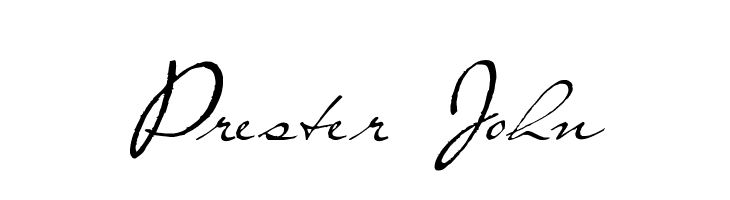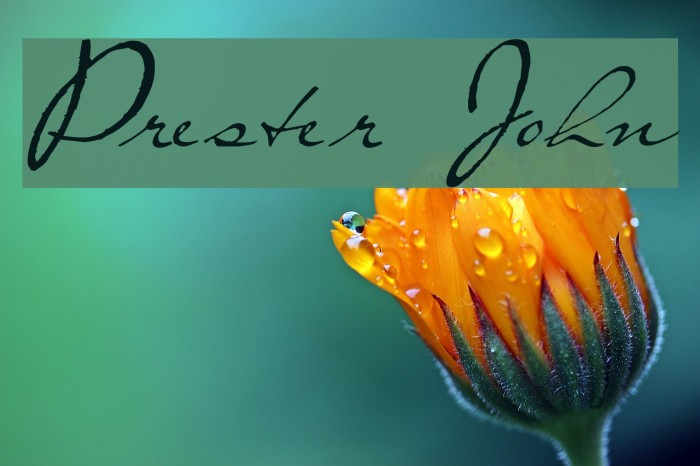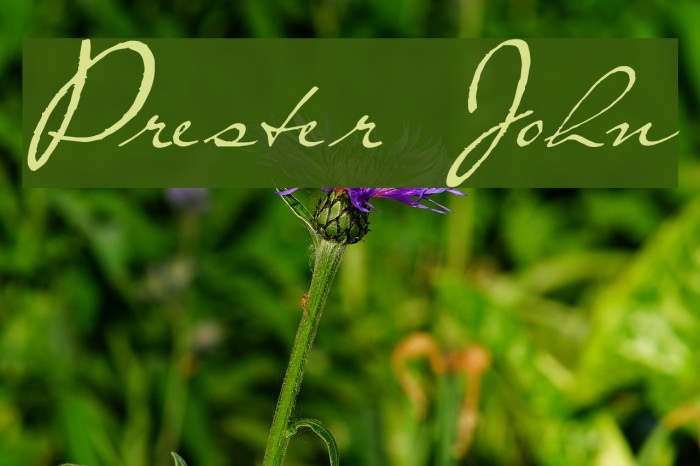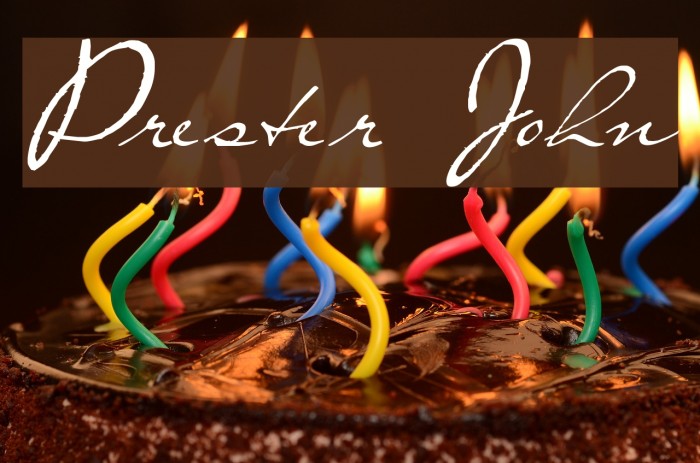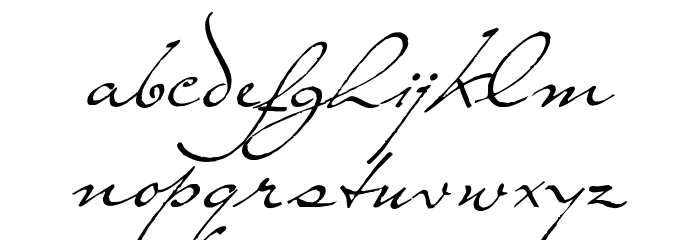
Prester John Font
Prester John Description
This elegant script font features a flowing, cursive style that mimics the fluidity of handwritten calligraphy. The uppercase letters are ornate and slightly larger than the lowercase, adding a touch of sophistication and grandeur. Each character is intricately designed with smooth curves and delicate loops, creating a harmonious and graceful appearance. The font maintains a consistent stroke width, giving it a balanced and cohesive look. Its artistic flair makes it ideal for projects that require a personal and refined touch, such as invitations, greeting cards, and branding materials. The font's classic and timeless aesthetic ensures it will remain stylish and relevant across various design contexts.
An elegant script font with flowing, cursive style and intricate details from Handwritten fonts.
- Proposed Projects: Ideal for wedding invitations, greeting cards, elegant branding, and personal stationery.